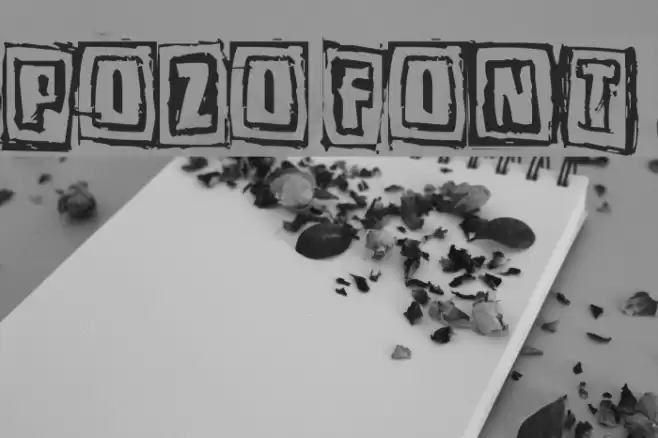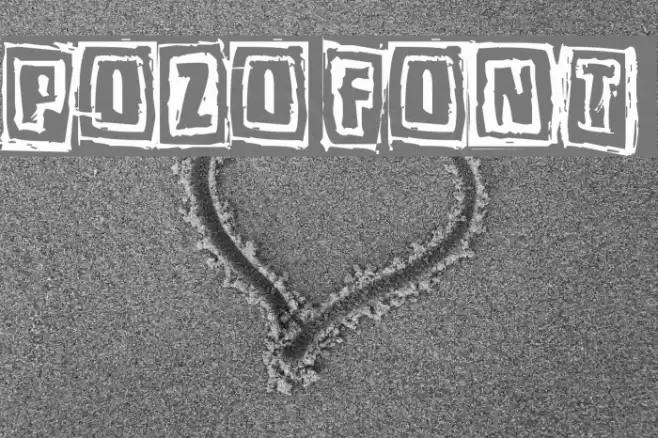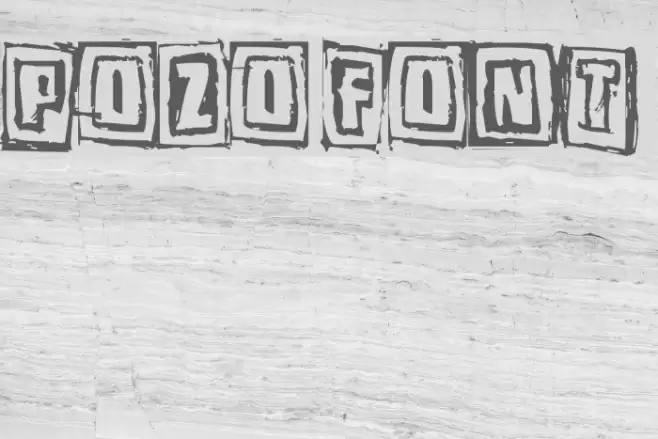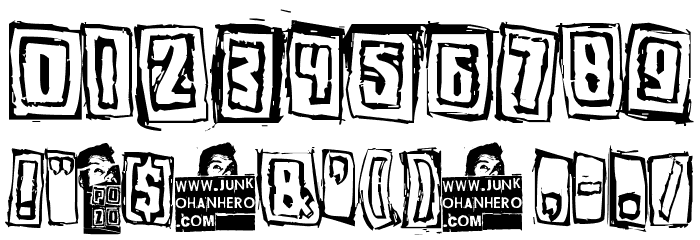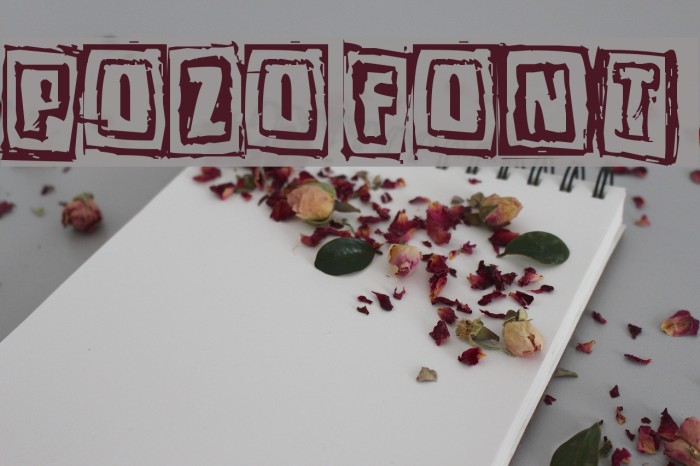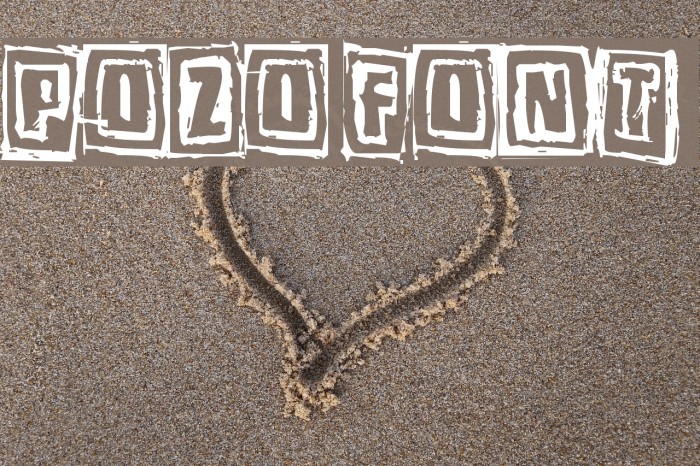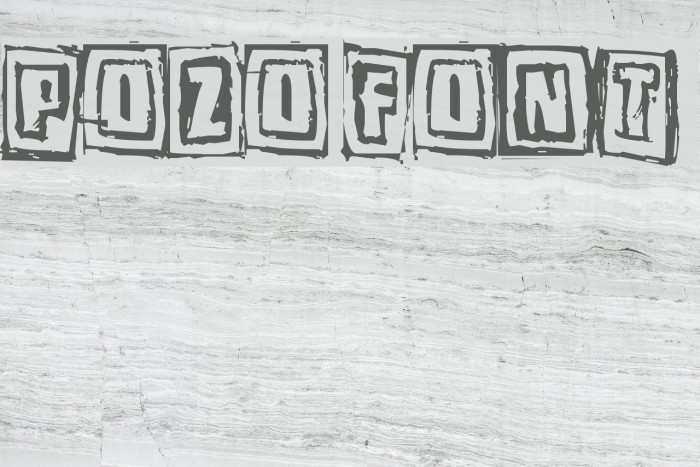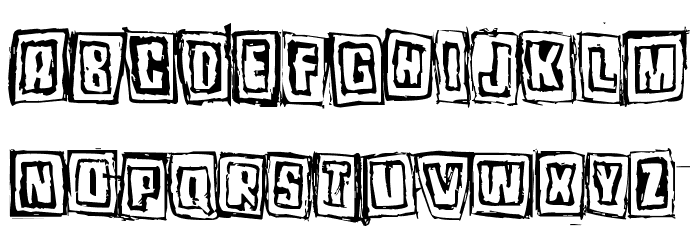
Pozo Font
Pozo Description
This font features a bold, distressed style with a hand-drawn appearance. Each character is enclosed in a rough, uneven square, giving it a unique, grungy look. The letters and numbers are irregular in shape, with varying line thicknesses that add to the chaotic, artistic feel. The overall design is reminiscent of a ransom note or graffiti, making it stand out with its edgy, rebellious vibe. The font's rough edges and uneven baseline contribute to its dynamic and energetic character, making it ideal for projects that require a bold statement.
A bold, distressed font with a hand-drawn, grungy style from Distorted Eroded fonts.
- Proposed Projects: Ideal for album covers, posters, street art designs, and edgy branding projects.
- Overall Style: Grunge, Artistic, Rebellious